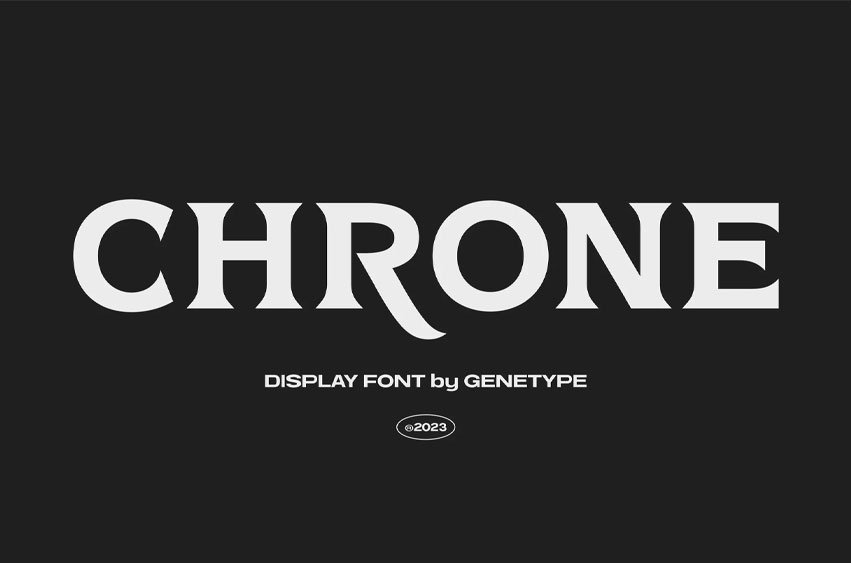
Chrone Font is a bold modern display font that blends classic gothic influences with a contemporary edge. With its sharp serifs, powerful curves, and distinct rhythm, Chrone stands out as a strong typographic statement for bold designs. Designed for logos, posters, music covers, and branding projects, it brings a rebellious yet refined aesthetic to any visual composition.
This typeface carries a modern-retro vibe — inspired by vintage record labels and 70s typography — but refined with a clean, digital finish that makes it versatile for today’s creative work. Perfect for designers who want to express attitude, confidence, and personality through typography.
Chrone includes uppercase & lowercase letters, numerals, punctuation, multilingual support, and is available in OTF, TTF, and WOFF formats. Whether it’s a band identity, streetwear logo, or editorial title, Chrone gives every design a bold and timeless character.